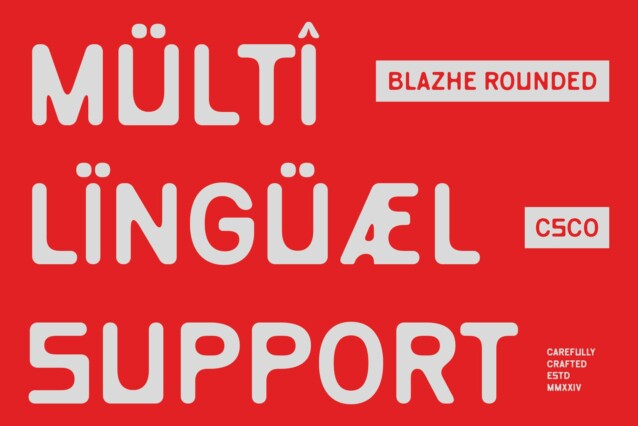
Blazhe Rounded Font
Blazhe Rounded Font is a contemporary sans serif font characterized by its grotesque shape and soft, rounded edges, resulting in a friendly and approachable impression. The gentle curves and smooth transitions in its letterforms create a welcoming aesthetic that draws in the viewer, making it perfect for brands that want to convey warmth and accessibility. Its modern design seamlessly blends functionality with style, ensuring that it stands out in any setting.